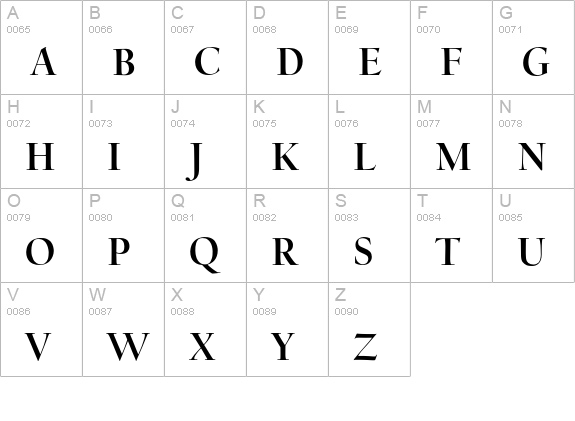
CalifornianDisplay-Bold is a strong, high-contrast variant in the CalifornianDisplay typeface family \xE2\x80\x94 well suited to headlines, attention-grabbing titles, and strong calls-to-action.
CalifornianDisplay-Bold font is a versatile and eye-catching typeface that exudes a bold and modern aesthetic. With its strong, thick strokes and clean lines, this font is perfect for making a statement in headlines, titles, and logos. The striking design of CalifornianDisplay-Bold commands attention and adds a touch of sophistication to any project. What's even better is that CalifornianDisplay-Bold is available for free download at FontsMarket.com. This means you can easily access this stylish font and incorporate it into your designs without any cost. Whether you're working on a website, branding materials, or print projects, CalifornianDisplay-Bold is sure to elevate your work with its unique charm and professionalism. Download it now and enhance your typography game with this exceptional typeface.